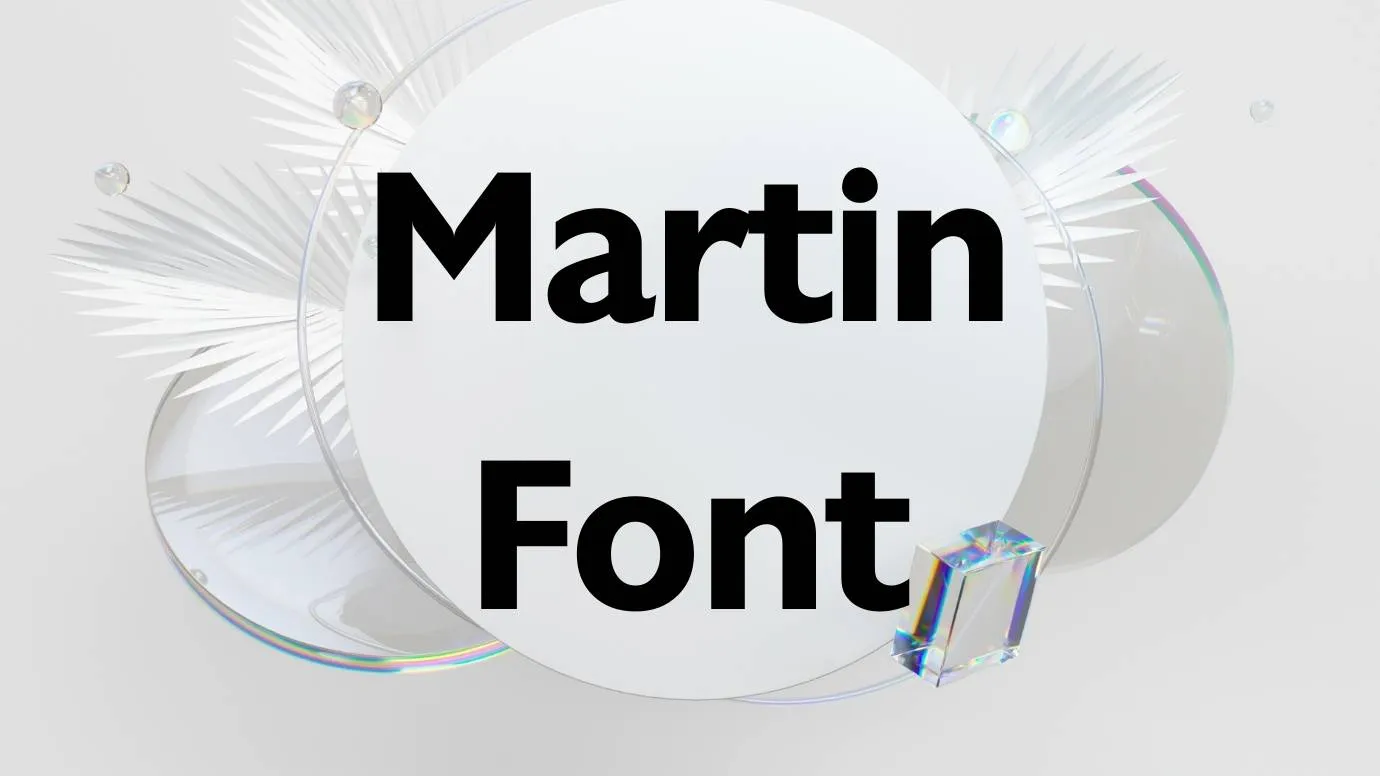
Martin Font Family is a sans serif typeface that was used for the logo of the television series known as “Martin”. This font has bold sans serif characters that are most useful for heading purposes.
It has 10 weights including bold, light, and black. It comes in 503 glyphs along with one thousand and twenty-four units per em. The azonix font is perfect for pairing with this typeface.
Martin Font Family